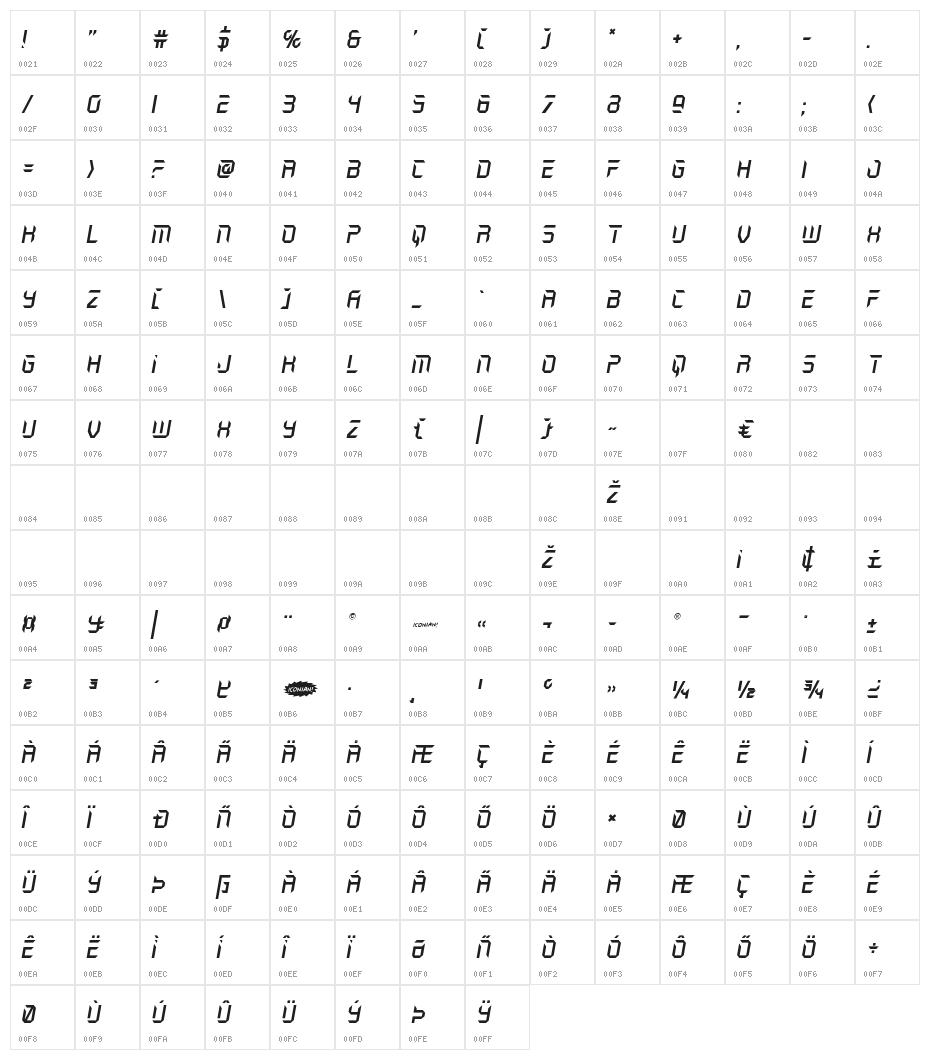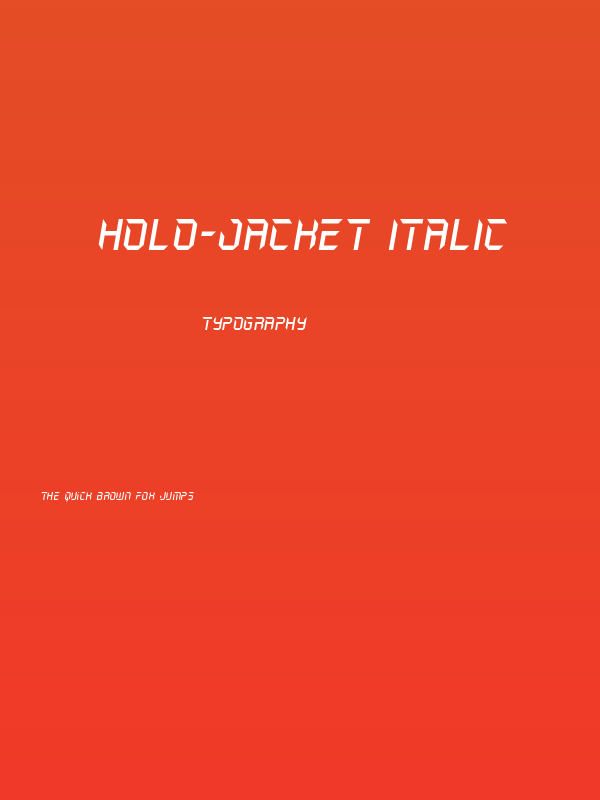
Holo-Jacket Italic Font
Holo-Jacket Italic Description
This font features a futuristic and angular design, characterized by sharp edges and a slanted, italicized style. The letters are bold and geometric, giving a sense of movement and speed. The uppercase and lowercase letters maintain a consistent angularity, while the numbers and special characters follow the same design principles, ensuring uniformity across all glyphs. The font's unique style makes it stand out, with a modern and tech-inspired aesthetic that is both eye-catching and distinctive.